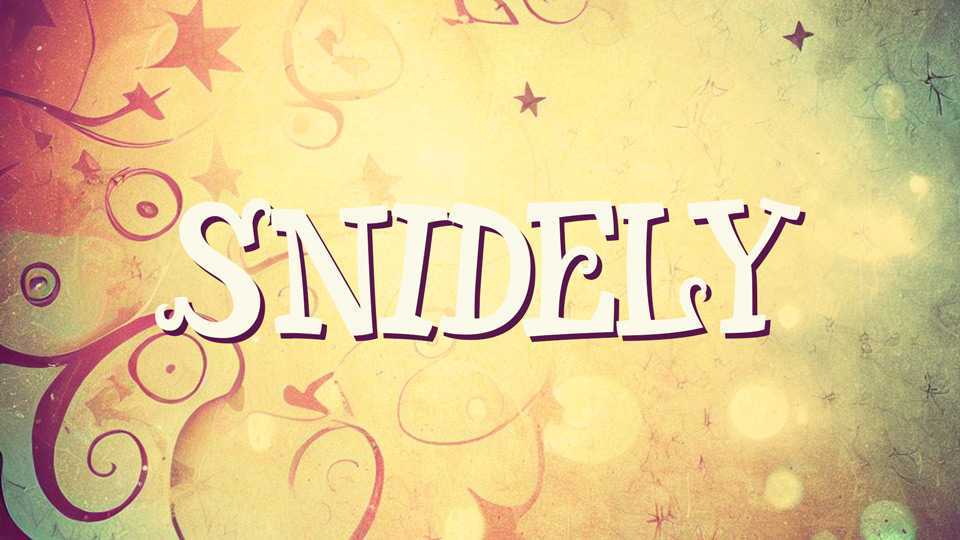
Download Snidely font, a curly, whimsical typeface designed to infuse your designs with a sense of enchantment and wonder. Crafted with graceful, swirling curls and a touch of artistic flourish, Snidely font is perfect for designs that demand a dash of magic and charm.